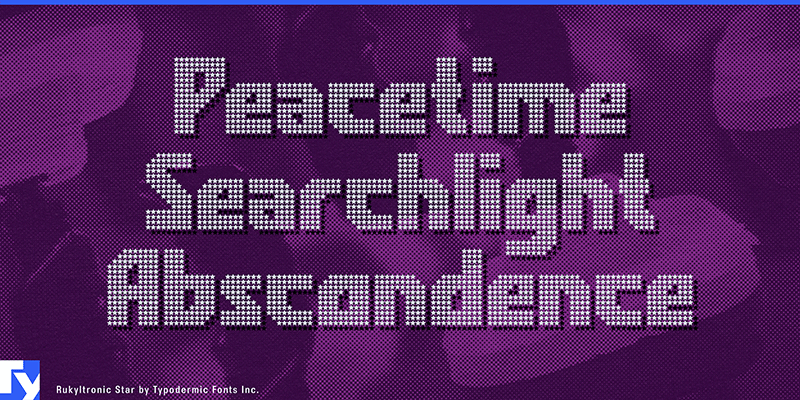
Rukyltronic Star
Rukyltronic is a pixel-grid typeface with blocky forms, angled corners, and textured fills that give designs instant digital character. Different pixel patterns add visual texture while keeping the letters clear and punchy. Its bold bitmap rhythm works well for game interfaces, esports branding, posters, tech events, and retro-inspired graphics. With strong legibility and broad Latin language support, Rukyltronic brings raw pixel energy to modern design. This font includes a license that allows free commercial use: sometimes referred to as a desktop license. This allows you to install the font on a computer and use it to create posters, web graphics, game graphics, t-shirts, videos, signs, logos and more. Read the license agreement for details. If you'd like to embed this font in an app, on the web or anything that's not covered by the desktop license agreement, visit the link below. You'll find distributors who offer different types of licenses, or you can contact me for help. https://typodermicfonts.com/rukyltronic/ This free font is part of a larger font family. Check out the rest of the family through the link above.
Rukyltronic Star illustration